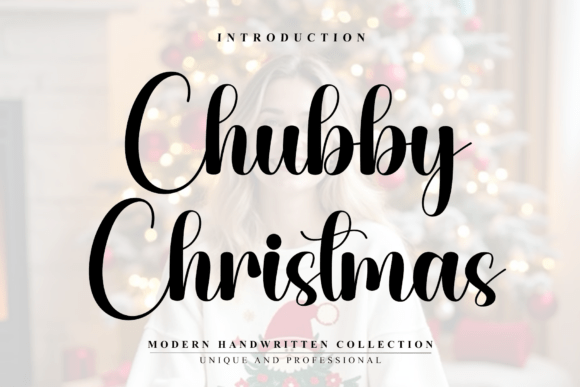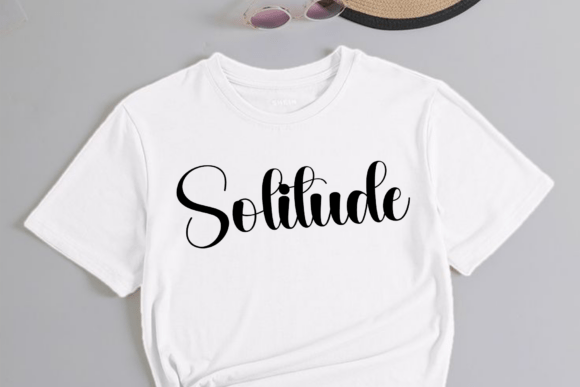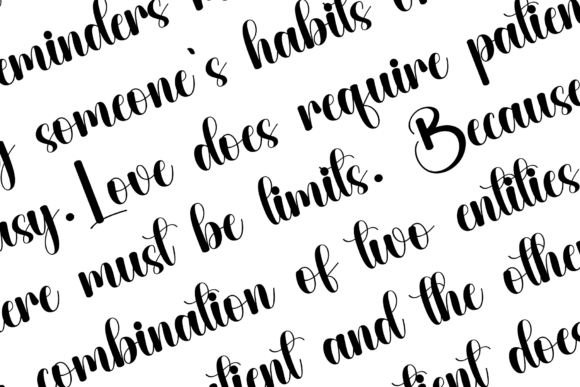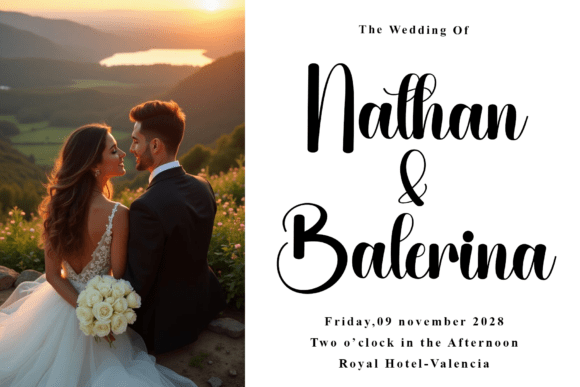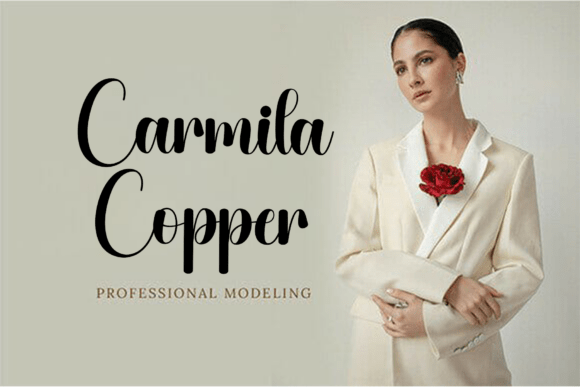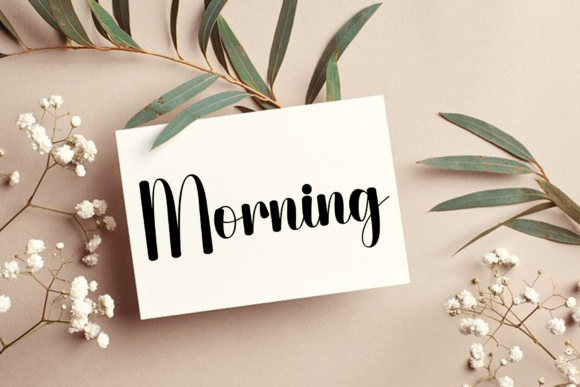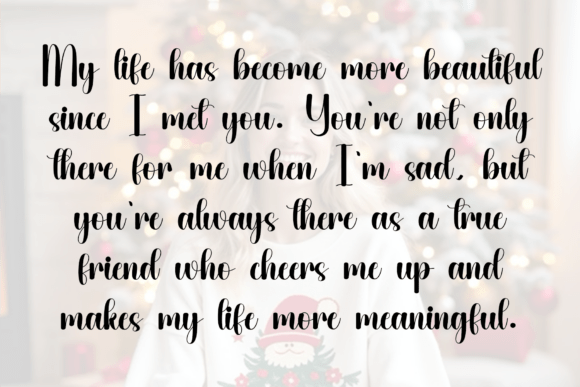
Deck the Halls with the Chubby Christmas Font
As the snowflakes start to fall and the festive lights begin to twinkle, the holiday season is in full swing. But what sets your designs apart from the crowd? For many designers, the perfect font can be the difference between a merry message and a mediocre one. That’s where the Chubby Christmas Font comes in – a delightful, modern script typeface that captures the essence of the season with its plush curves and generous stroke weight.
With its elegant calligraphy-inspired style and charming, approachable vibe, the Chubby Christmas Font is the perfect choice for any festive project. Whether you’re crafting personalized gift tags, designing vibrant Christmas cards, or creating holiday-themed branding, this script typeface is sure to bring a touch of sophistication and warmth to your designs. Its versatility and PUA-encoded glyphs make it a valuable addition to any designer’s toolkit, ensuring that your holiday designs truly shine this season.
- Unique Characteristics: The font features a playful, rounded design with exaggerated features, making it ideal for festive and holiday-themed designs.
- Font Style: Chubby Christmas Font is available in both regular and bold styles, providing options for designers to create varying levels of emphasis and contrast.
Chubby Christmas Font Review
I recently had the chance to work with the “Chubby Christmas Font” and here’s my honest review.
- The font’s playful, festive vibe is perfect for holiday projects and designs.
- The chubby, rounded letters are visually appealing and add a touch of whimsy to any design.
- The font’s versatility makes it suitable for a range of applications, from social media graphics to print materials.
Limitsations ⚠️
- The font may not be suitable for projects that require a more formal or sophisticated look.
- The chubby letters can be difficult to read at smaller font sizes, making it less ideal for body text.
- The font’s weight and spacing may not be as customizable as some designers might prefer.
Overall, I found the “Chubby Christmas Font” to be a fun and creative addition to my design toolkit. While it may not be the best choice for every project, it’s perfect for adding a playful touch to holiday designs and marketing materials. I would recommend it to designers looking for a unique and festive font option.
The Chubby Christmas Font is perfect for creating festive designs, such as:
- Christmas cards and invitations
- Holiday graphics and social media posts
- Seasonal menus and advertising materials
Q: Is the Chubby Christmas Font available in multiple languages?
Yes, the Chubby Christmas Font includes support for multiple languages, including Latin, Cyrillic, and Greek scripts. This means you can use the font to create designs that cater to a global audience, without worrying about character set limitations.